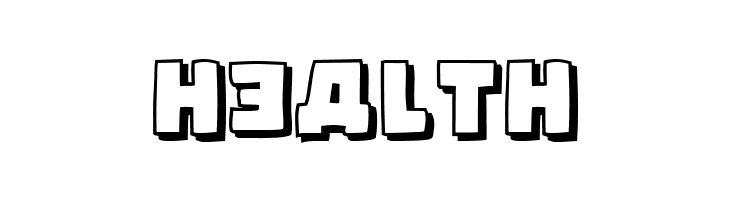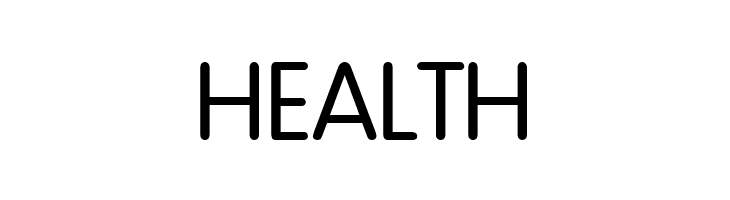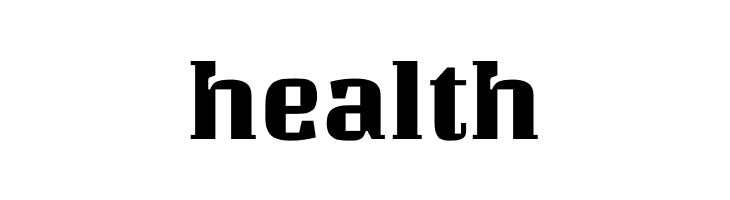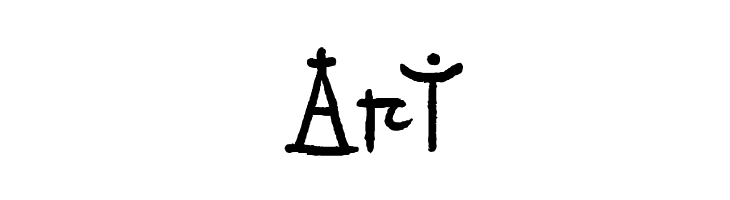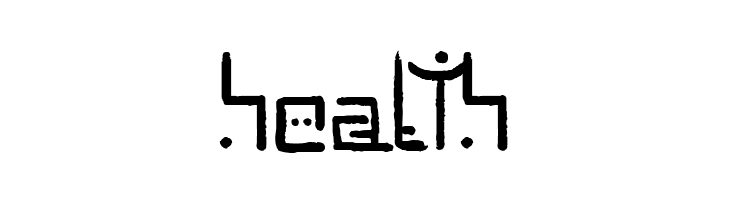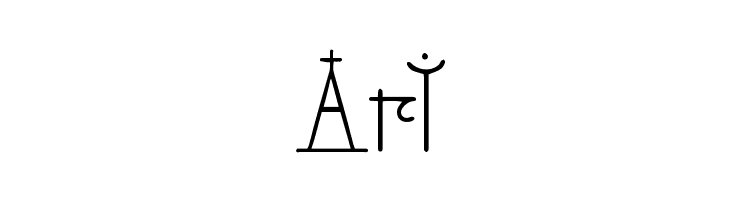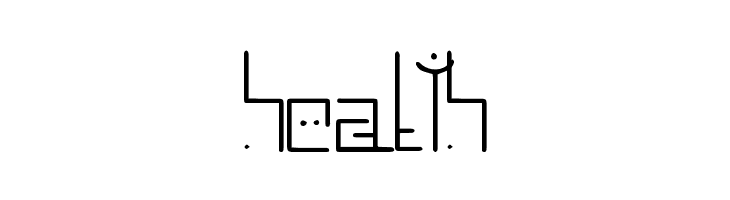
A bold, playful font with a shadow effect for added depth.
A geometric and artistic font with decorative elements and a modern style.
A bold, artistic font with tribal and geometric influences.
A decorative and artistic font with playful, geometric, and organic forms.
A decorative uncial script with intricate animal motifs and mythical embellishments.
A vintage, typewriter-inspired font with a textured, worn appearance.
A modern, geometric typeface with a clean and sleek design.
A bold, slab serif font with strong, impactful characters.